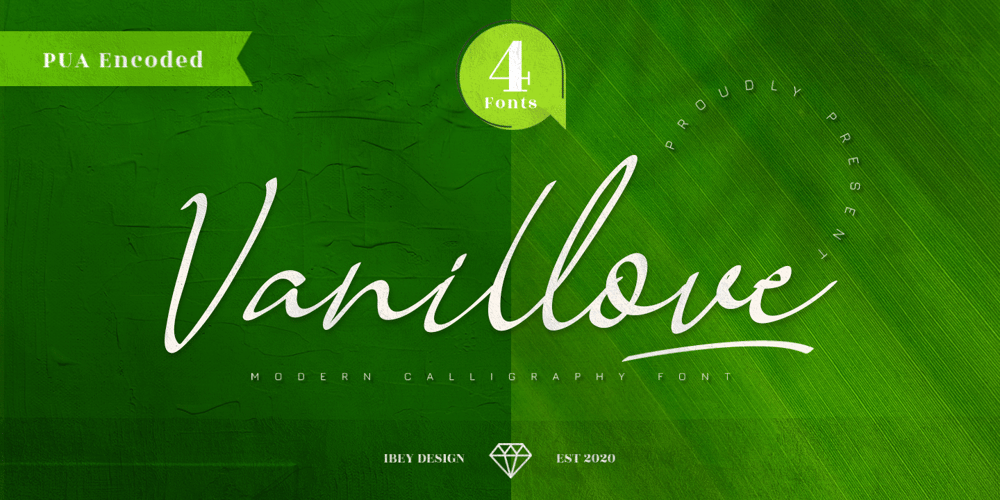
Vanillove Font Family was designed by Ikrar Bey Khubaib and published by IbeyDesign. Vanillove contains 8 styles and family package options. Vanillove Calligraphy Family Font is a fantastic font with a personal charm. With its four weights and a signature style, Vanilla is perfect for photography, watermarks, social media posts, advertisements, logos & branding, invitations, product designs, labels, stationery, wedding designs, product packaging, special events, or anything that needs a calligraphy or handwriting taste.